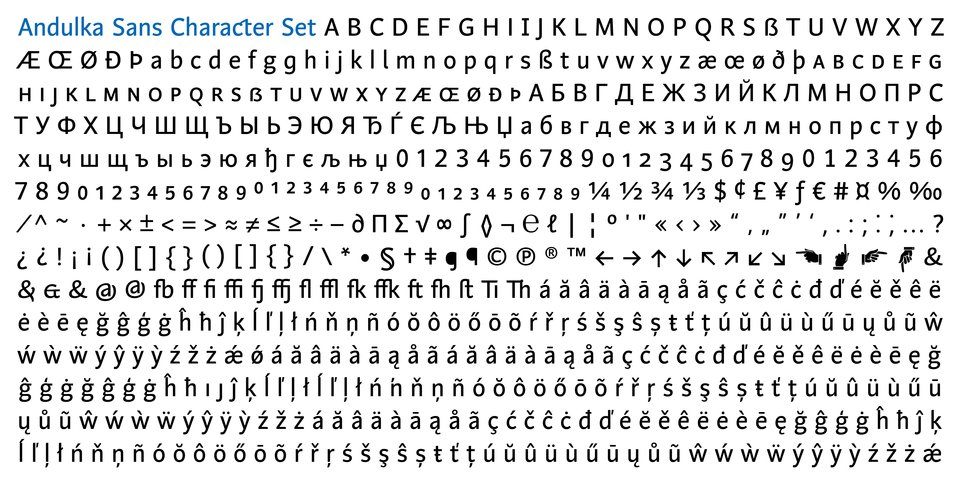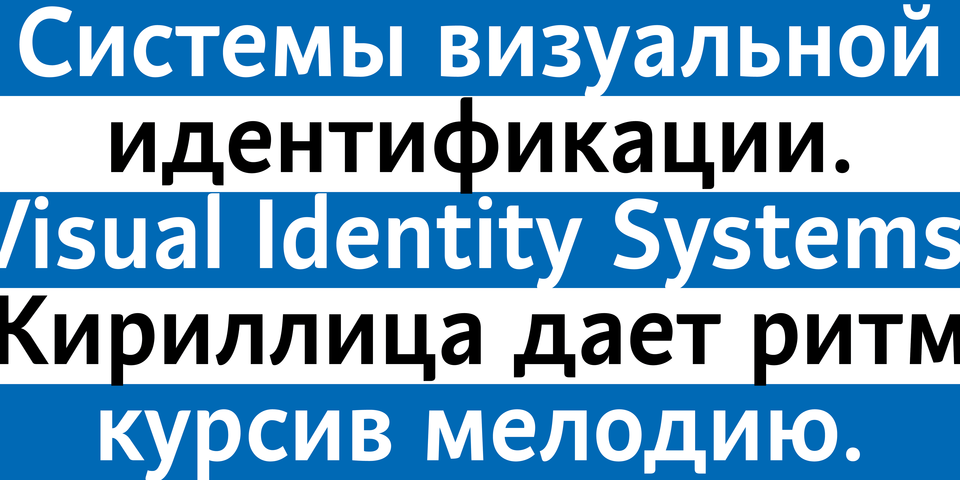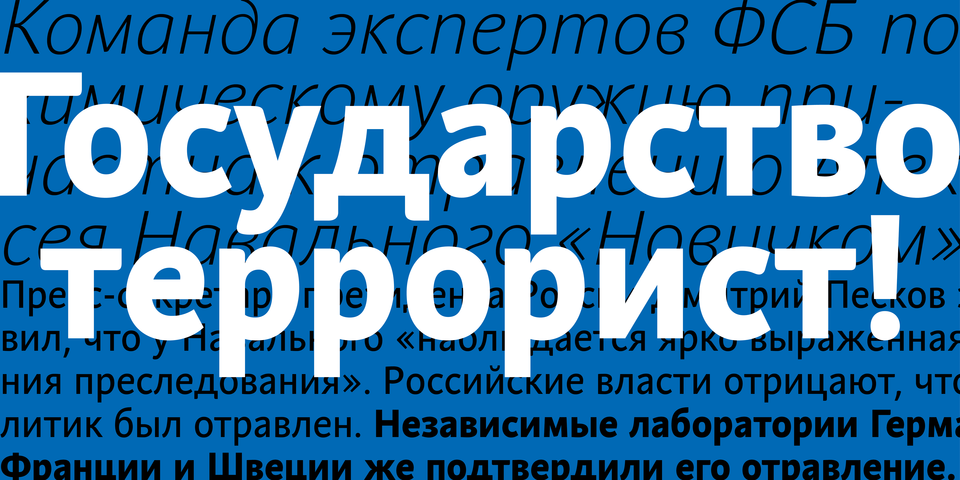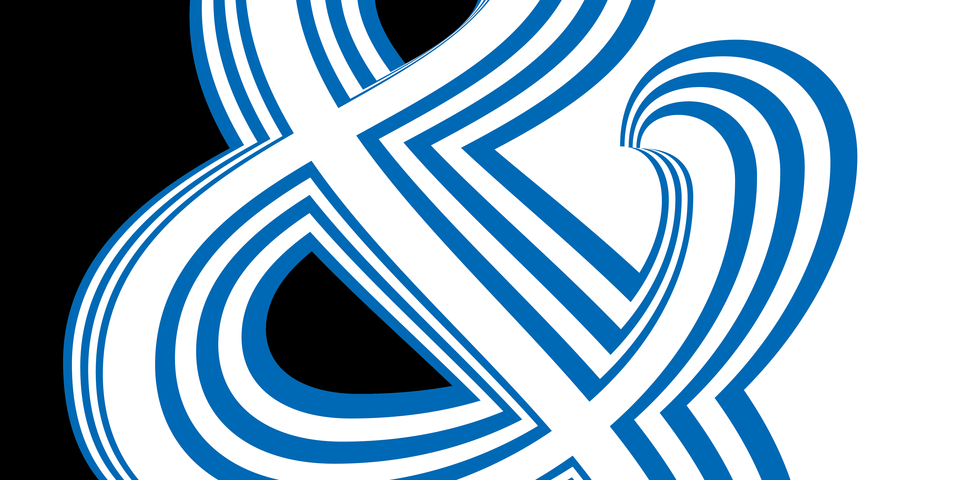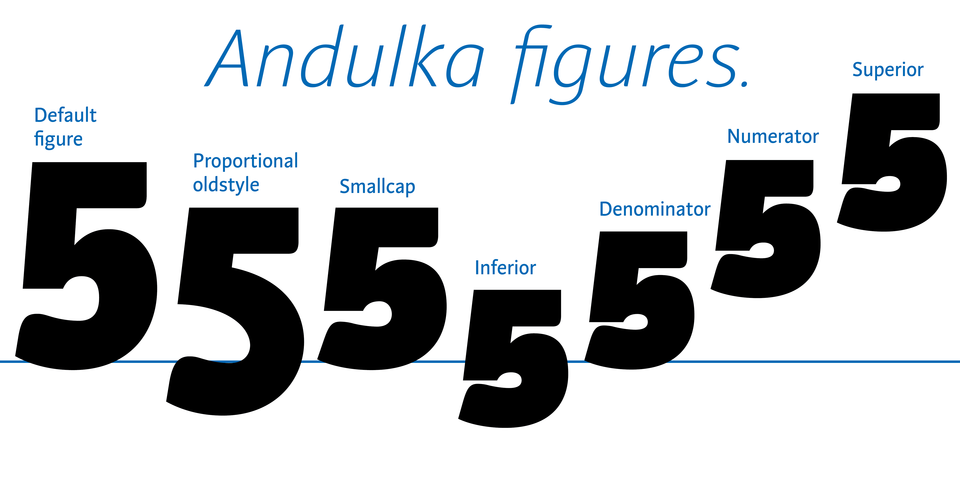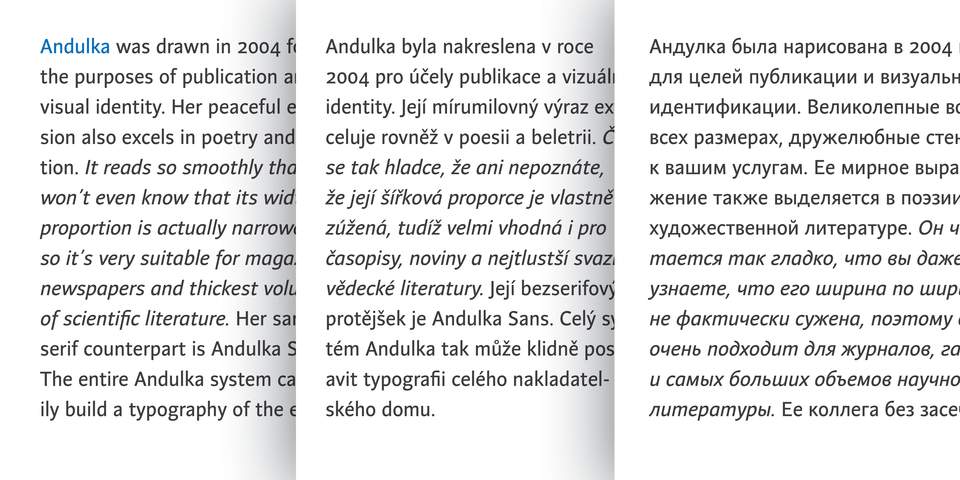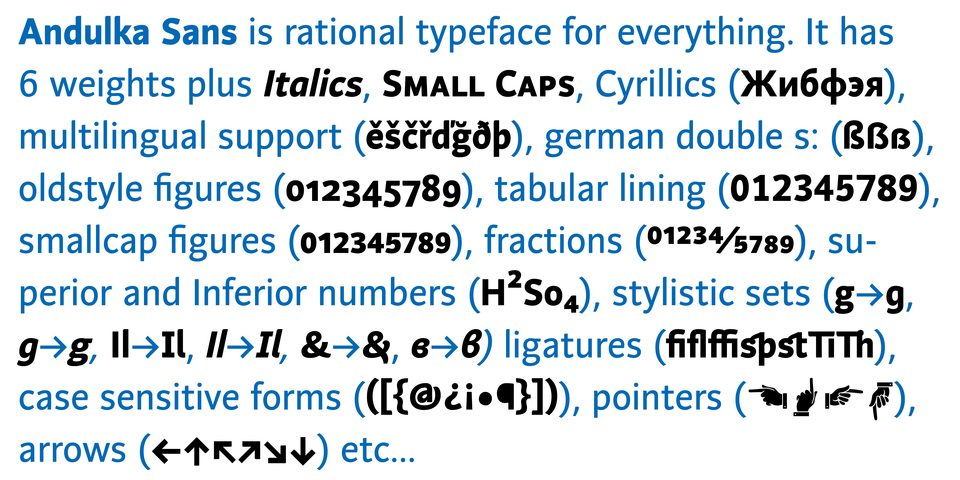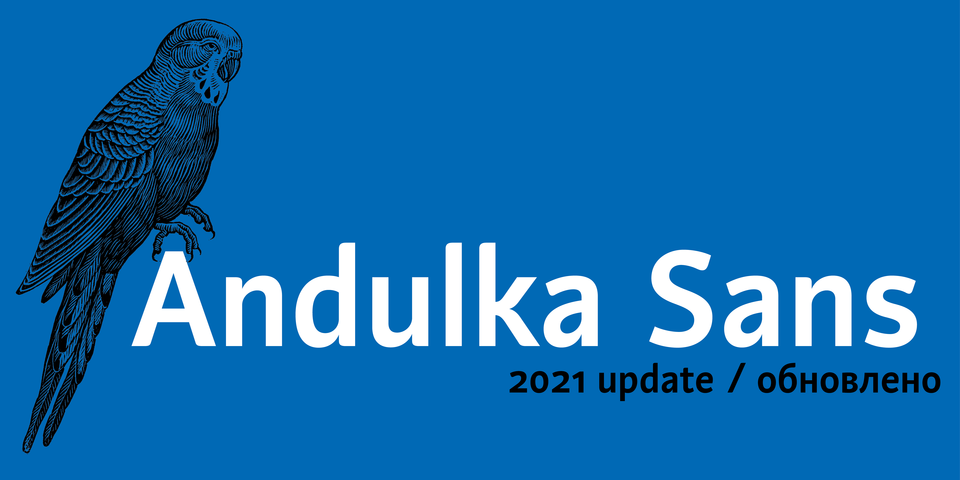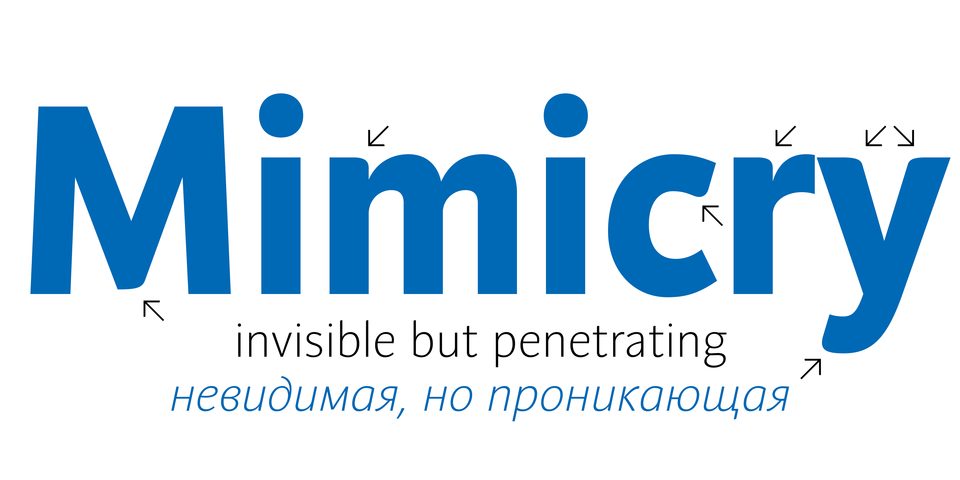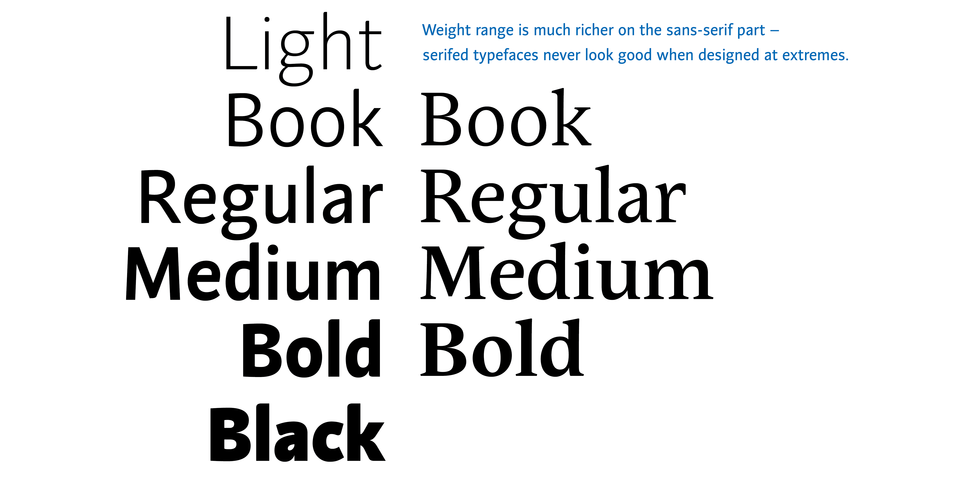
by František Štorm
Andulka was drawn in 2004 for the purposes of publication and visual identity. Her peaceful expression also excels in poetry and fiction. It reads so smoothly that you won’t even know that its width proportion is actually narrowed, so it’s very suitable for magazines, newspapers and thickest volumes of scientific literature. Her serif counterpart is Andulka. The entire Andulka system can easily build a typography of the entire publishing house.
A universal typeface for books, magazines and newspapers is economizing, quiet, strong in drawing, but original and peaceful at the same time. Andulka was created without any historical reminiscences in mind, but with emphasis on contemporary design requirements. Type “for all weather” resists many difficulties of printing on different surfaces, uses less space on page, and thus saves paper too. Italics may remind humanistic inspiration. The shape of lowercase “germandoubles” is inspired by a Budgerigar (Melopsittacus undulatus) bird called “Andulka” in Czech language, she sings lovely and is everyday lovely companion.
Univerzální písmo pro knihy, časopisy a noviny je úsporné, tiché, silné v kresbě, ale zároveň originální a klidné. Andulka byla vytvořena bez jakýchkoliv historických reminiscencí, ale s důrazem na současné designové požadavky. Písmo „do každého počasí“ odolává mnoha obtížím při tisku na různé povrchy, využívá méně místa na stránce, a tím také šetří papír. Kurzíva může připomínat humanistickou inspiraci. Tvar minusky „germandoubles“ je inspirován Andulkou, jež krásně zpívá a je každodenní půvabnou společnicí.